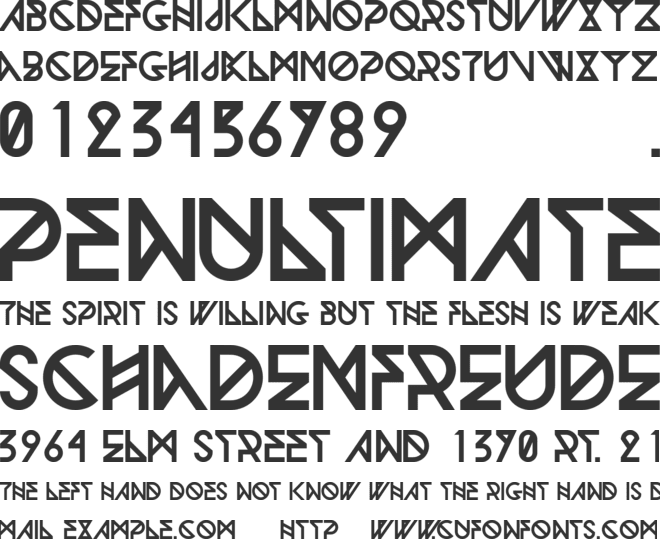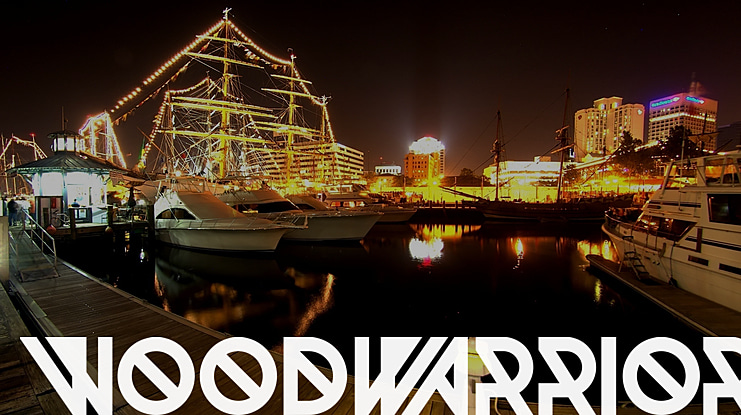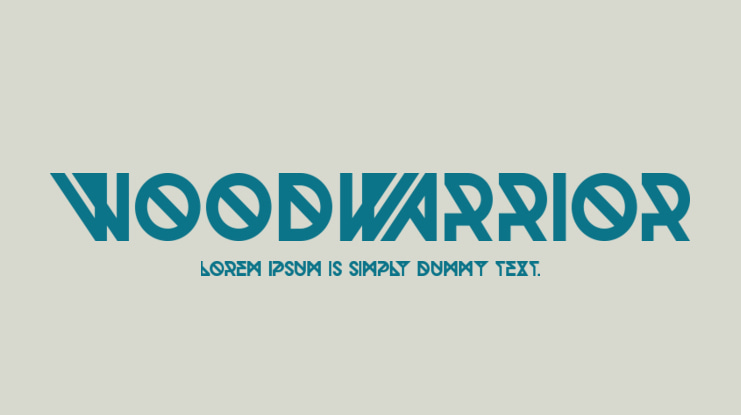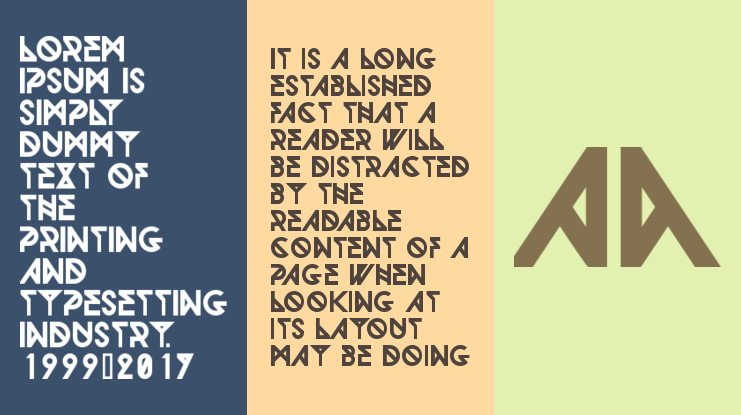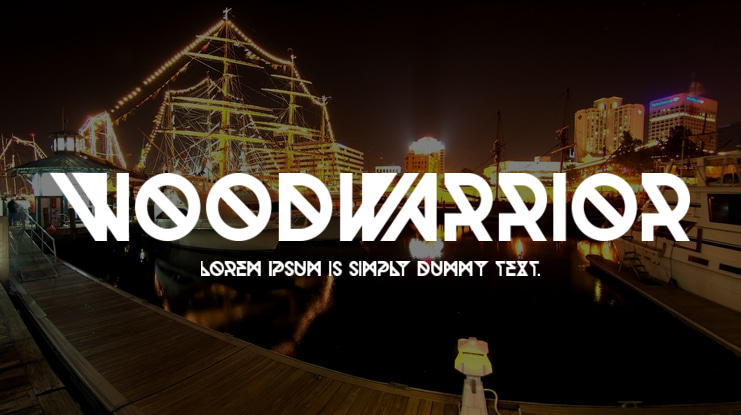
Woodwarrior Font Family
Woodwarrior is a typeface inspired by the north, and the contrast between modern man made structures and untouched nature shaped by wind and ice alone.